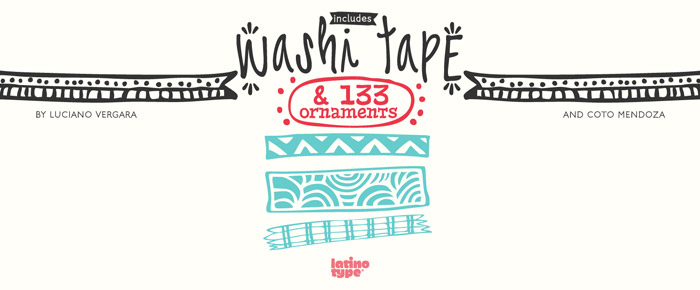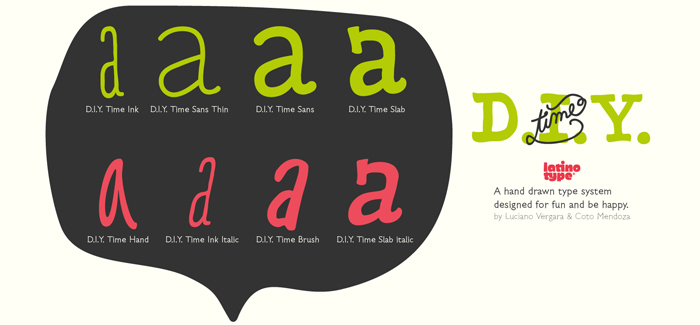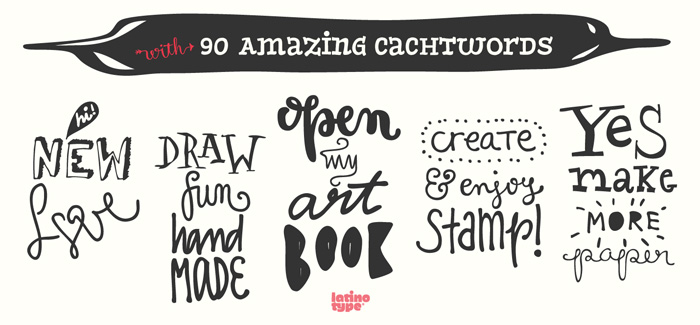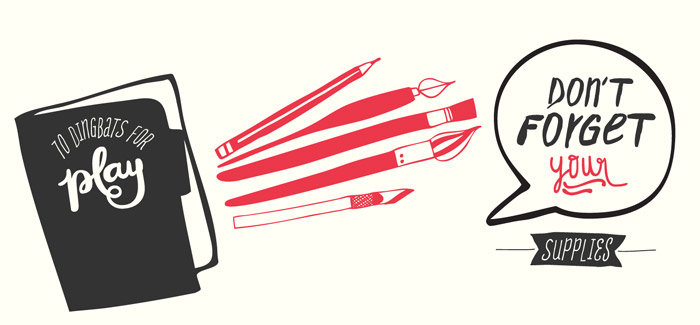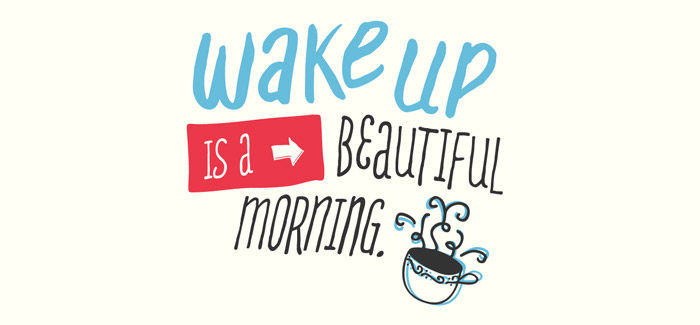
D.I.Y. Time
D.I.Y. Time font family is another great collection of freestyle fonts designed by Guisela Mendoza and Luciano Vergara for Latinotype. It has 8 different styles supported by 3 separate fonts for ornaments, dingbats & catchwords – everything you will ever need to D.I.Y. a greeting card, packaging, label, t-shirt, a logo or expressive poster. D.I.Y. Time has so much character, freshness and friendly spirit that you would definitely enjoy every step in its use. It also has a lot of potential in personalization and this important feature surely goes with font’s compatibility with open type format – you just need the right software to access all possible glyphs and get maximum level of diversity and proper combinations. Legibility level covers all possible standards both for print and for screen graphics. If you are a letterpress addict, then D.I.Y. Time font collection would surely become one of your favorites just because it has so much potential in this beautiful print technique.
Our overall conclusion is that D.I.Y. Time is a great font family dominated by a spirit of friendliness, freedom and happiness. Use it wherever you need one of these feelings implemented in your design. Spice it up with fresh vivid colours, some nice textured paper and you’ll get the best of it!